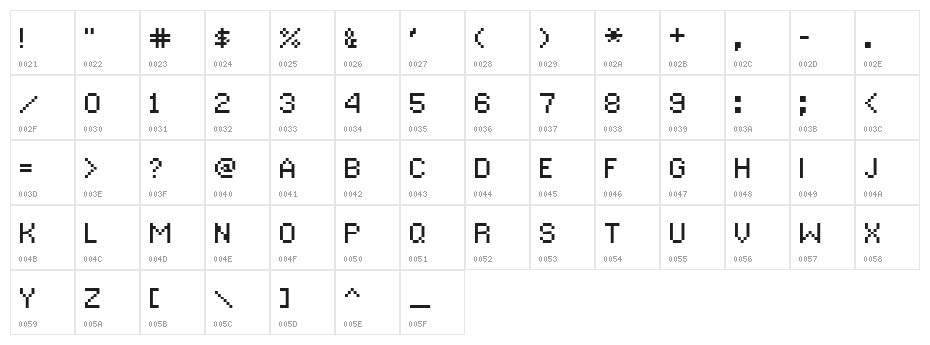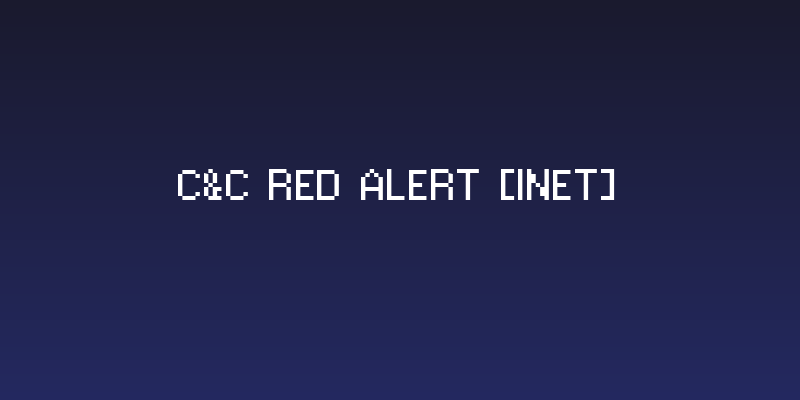
C&C Red Alert [INET] Font
C&C Red Alert [INET] Description
This font features a pixelated, blocky design reminiscent of early digital displays and video games. Each character is constructed with a grid-like precision, giving it a distinctly retro and technological feel. The uppercase and lowercase letters maintain a uniform height, enhancing its monospaced appearance. Numbers and special characters follow the same pixelated style, ensuring consistency across all glyphs. The font's simplicity and geometric structure make it highly legible, even at smaller sizes, while its nostalgic aesthetic evokes a sense of classic computing and arcade games.
| Use Case | Logos, Headlines, Digital Art |
| Proposed Projects | Ideal for retro video game designs, tech-themed posters, digital art projects, and any creative work that seeks to evoke nostalgia for early computing. |